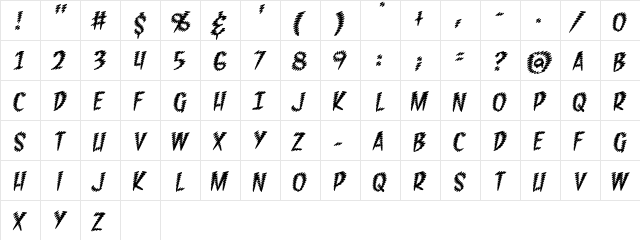
Feedback BB Italic
Design Context for Feedback BB Typeface
Feedback BB is a composed and adaptable typeface that performs quietly and consistently across a wide range of design contexts. The dynamic lean of this cut emphasises speed and emphasis in any layout.
Pro Tip: Use Feedback BB for emphasis, pull quotes, and subheadings where its slanted energy can add rhythm to the layout.